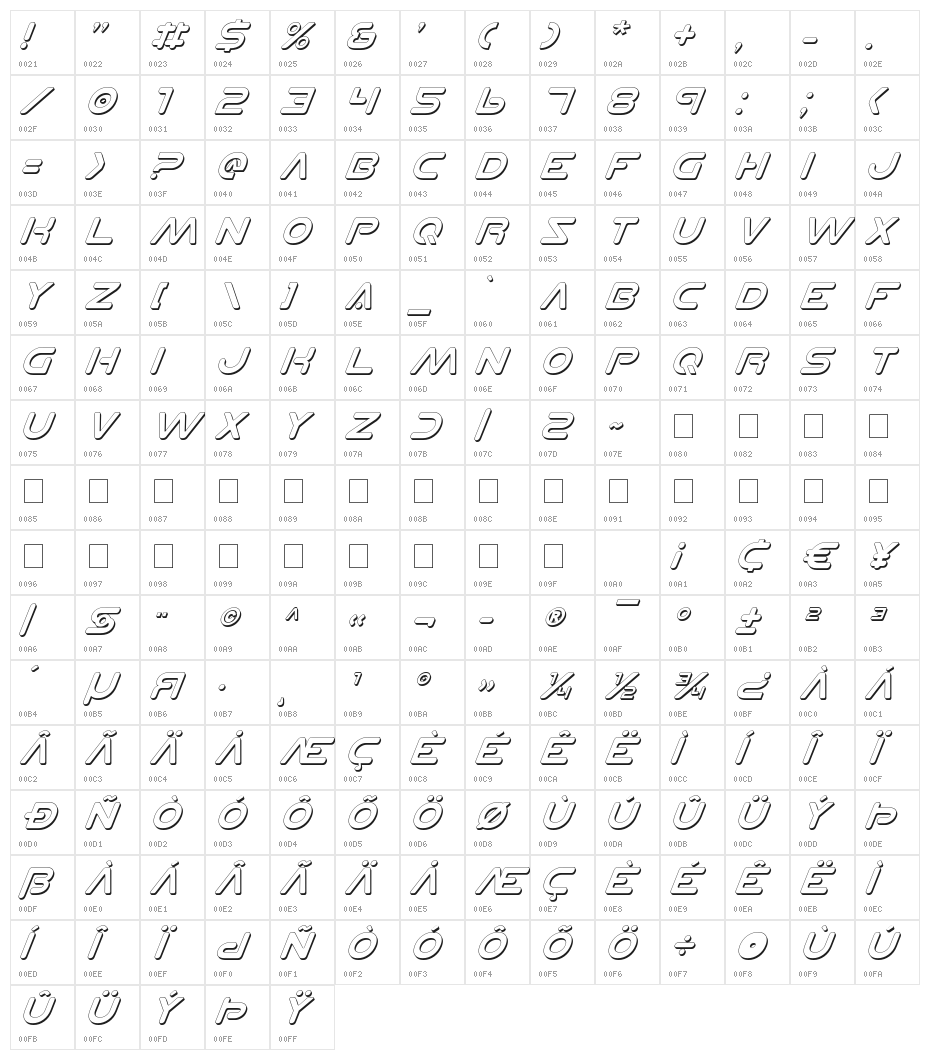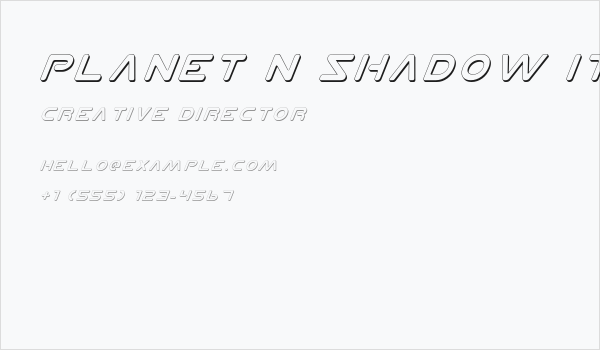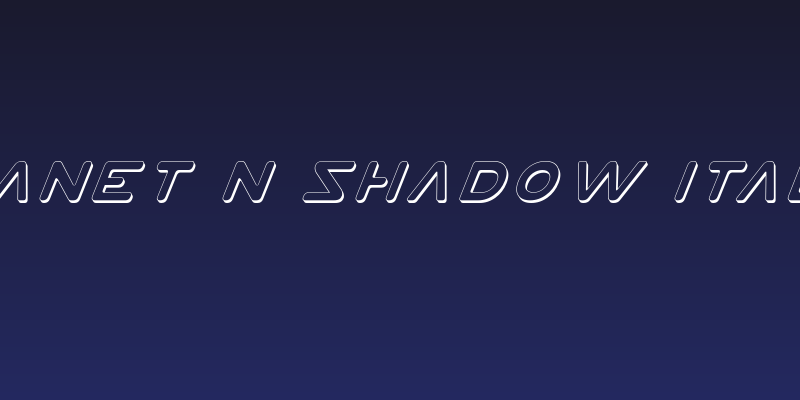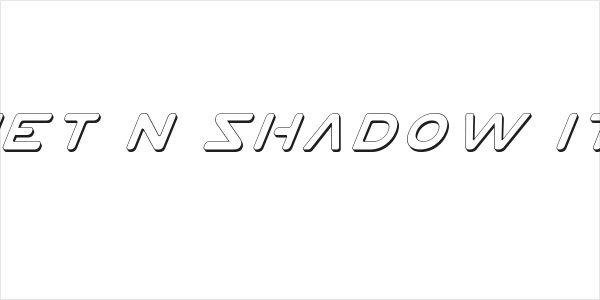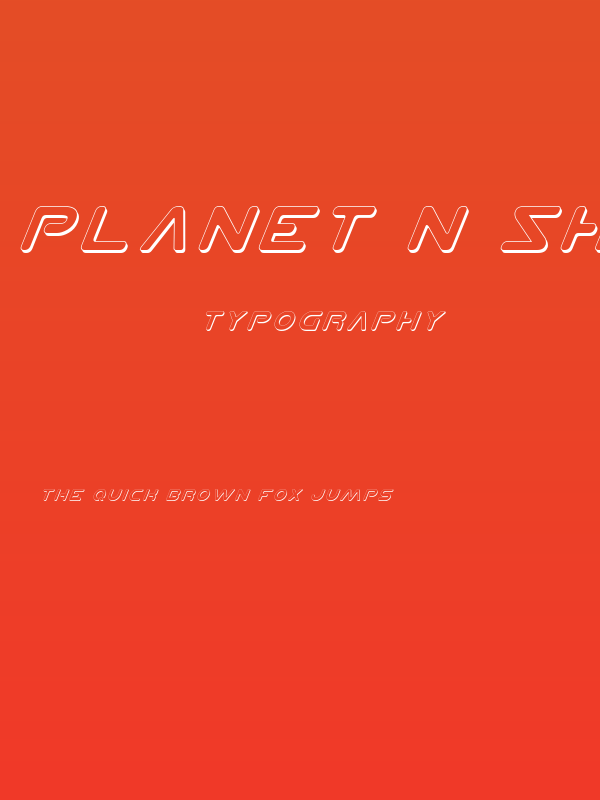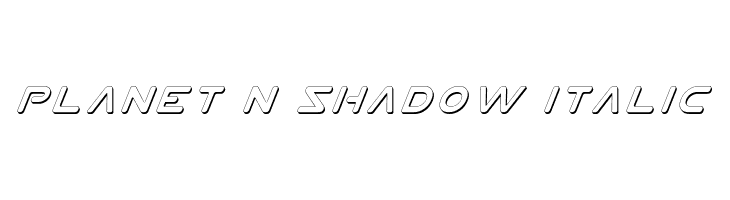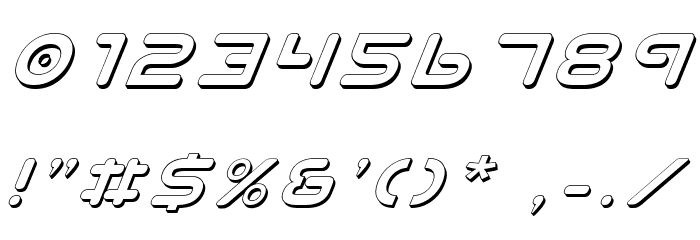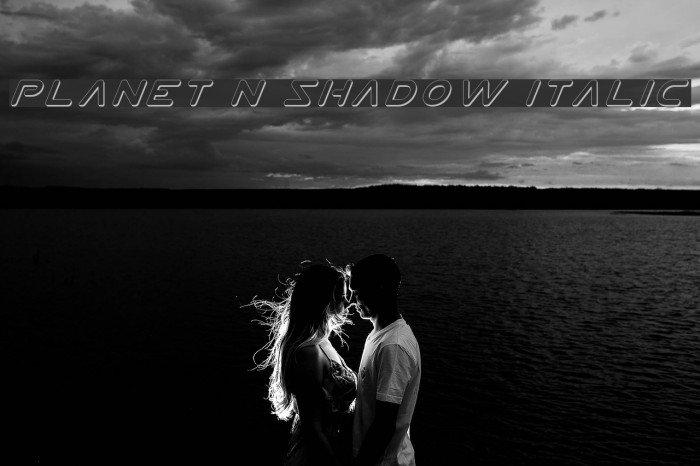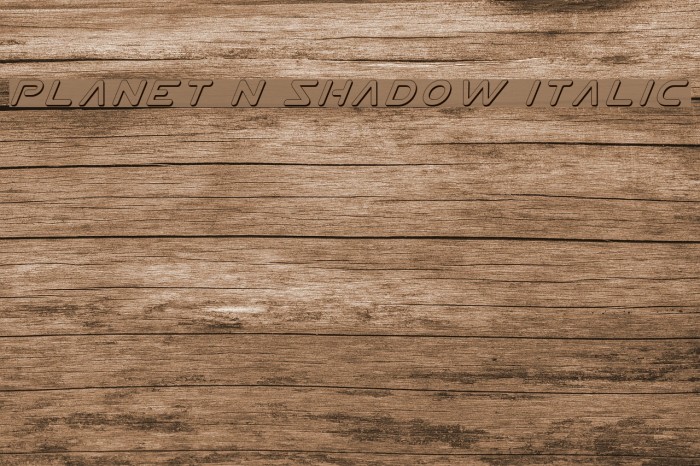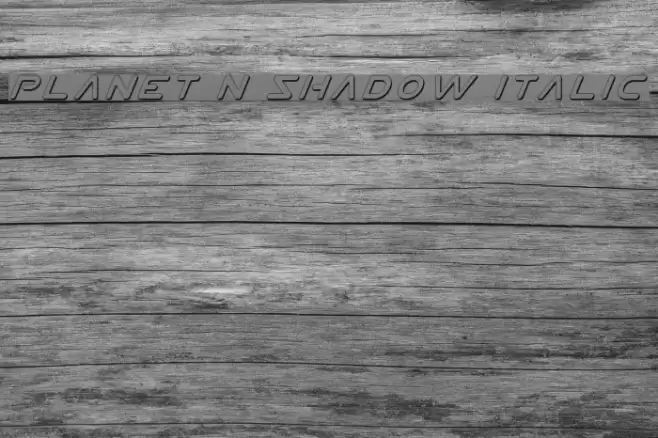
Planet N Shadow Italic Font
Planet N Shadow Italic Description
This font features a futuristic and sleek design with a shadow effect that gives it a three-dimensional appearance. The characters are italicized, adding a sense of motion and dynamism. Each letter is outlined, creating a hollow effect that enhances its modern aesthetic. The font maintains a consistent stroke width, contributing to a clean and uniform look. Its geometric shapes and angled lines make it ideal for projects that require a contemporary and tech-savvy feel.
| Proposed Projects | Ideal for tech branding, sci-fi posters, video game titles, and modern advertising. |